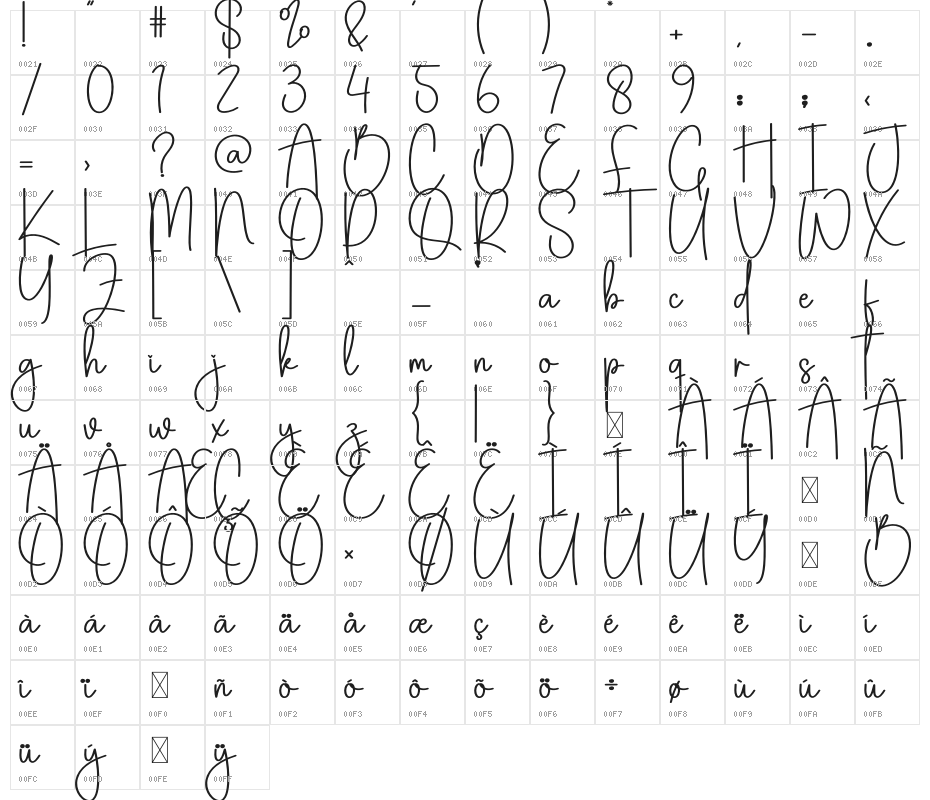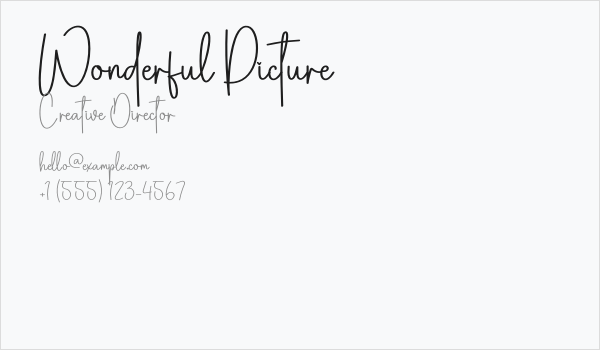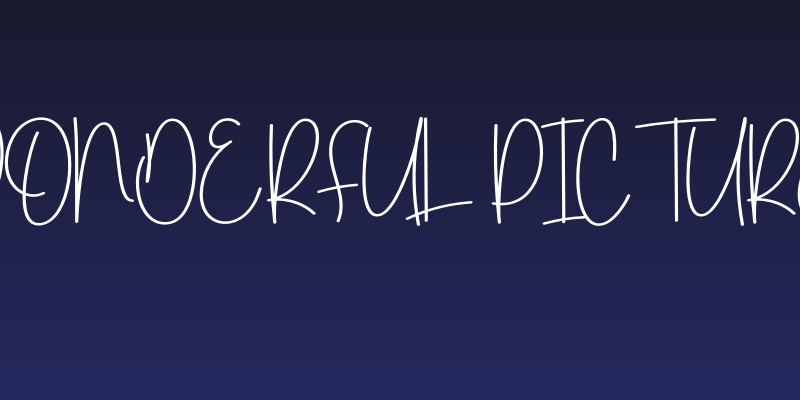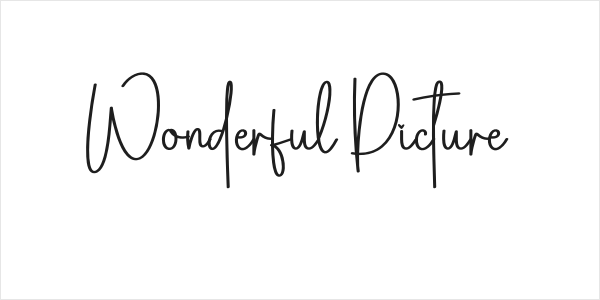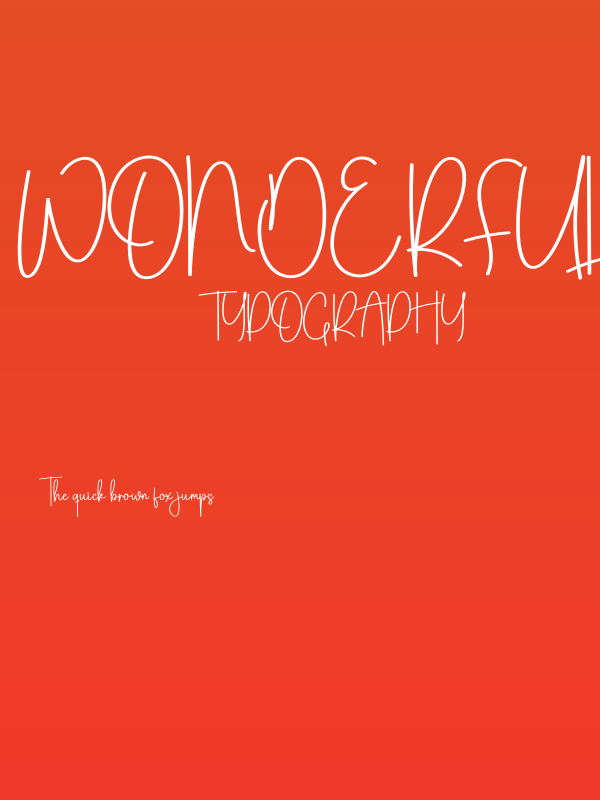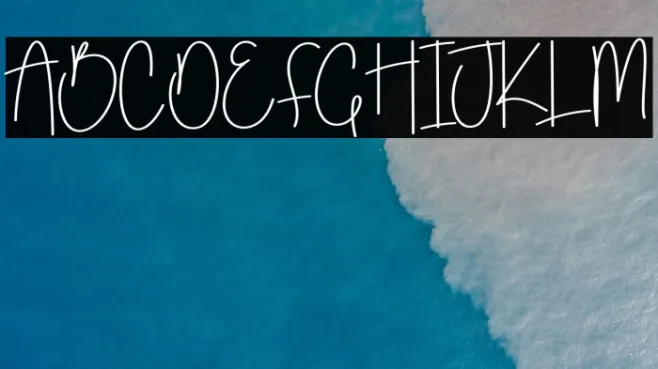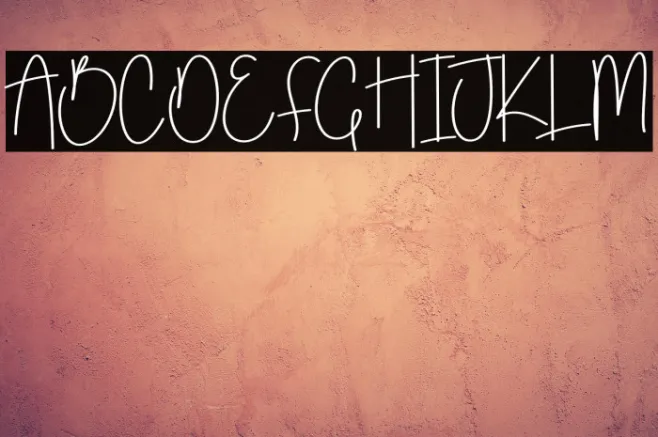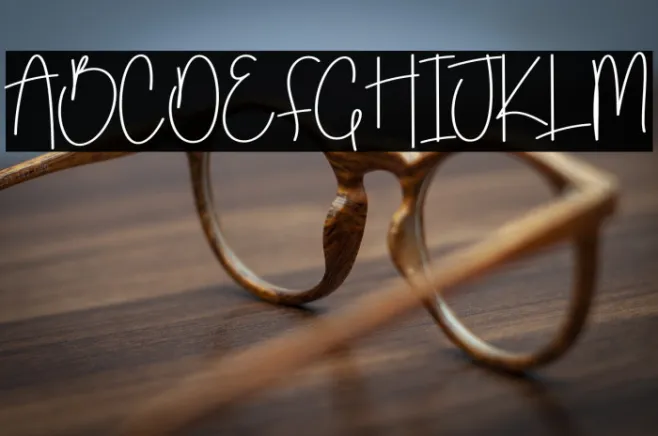
Wonderful Picture Font
Wonderful Picture Description
A playful, handwritten font with tall, narrow letters and a casual, informal style.
| Use Case | Headlines, Informal text |
| Proposed Projects | Greeting cards, invitations, casual branding. |